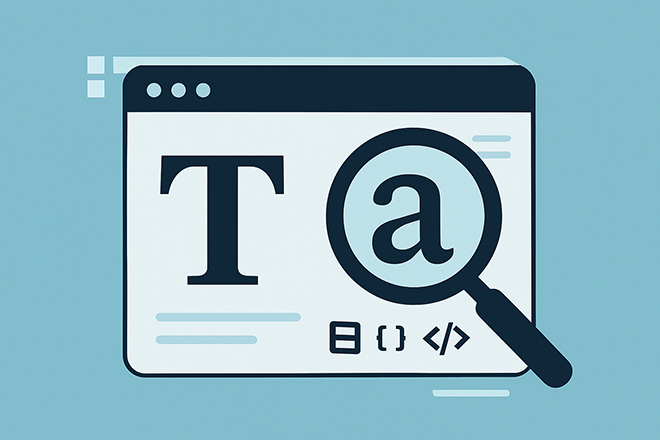
How to Identify a Font: Tips, Tools & Techniques
You’ve seen it before—a font on a poster, website, or logo that just looks perfect, and now you can’t stop thinking about it.
But what do you do when you don’t know the name of the font and need to find it for your own project?
Identifying a typeface might feel like searching for a needle in a haystack, but with the right approach (and a few helpful tools), it’s easier than you think.
Whether you’re trying to match a brand’s typography or simply satisfy your own design curiosity, here’s a practical guide to help you identify fonts with confidence.
Start With What You Know
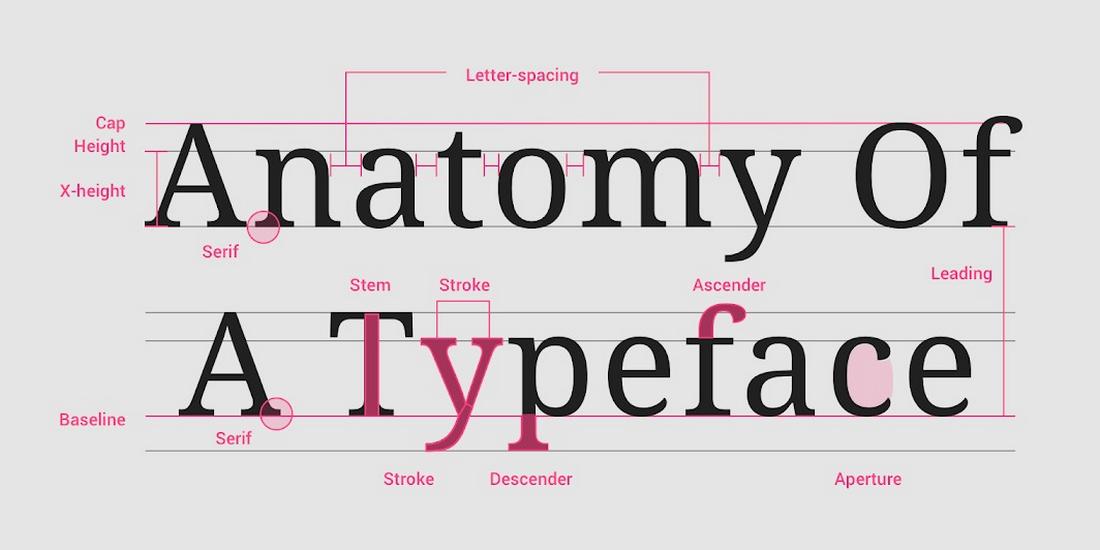
Before turning to tools, try to spot characteristics in the font that can help narrow things down.
Look closely at the letterforms and ask yourself a few questions:
- Is it serif or sans-serif?
- Are the strokes thick or thin?
- Are the letters geometric, rounded, or more humanist?
- Does it have any standout letters (like a unique “Q” or lowercase “g”)?
These small details can help you eliminate entire categories and get closer to a match.
Knowing the basics of typography, such as classifications like slab serif, grotesque, or script, can help you describe what you’re looking at more clearly.
Use Font Identification Tools
Once you’ve analyzed the visual traits of the font, it’s time to turn to technology.
Font identification tools have become surprisingly accurate, thanks to large font databases and smart image recognition algorithms.
These tools can scan a sample image, compare it to known fonts, and give you a list of possible matches, along with links to download or purchase them.
Here’s a closer look at some of the most popular and useful font ID tools available today:
What Font Is
What Font Is is a popular and powerful font recognition tool that uses AI and a massive font database to identify fonts from images.
You can upload a screenshot or crop of the text, and the tool will scan it for character shapes and spacing before presenting you with possible matches.
What makes What Font Is unique is its ability to compare your image against both free and paid fonts—offering a broader range of suggestions.
It also displays links to download or purchase the matched fonts and provides a side-by-side visual comparison so you can evaluate accuracy at a glance.
WhatTheFont by MyFonts
WhatTheFont is one of the most widely used tools for font identification.
You simply upload a screenshot or photo of the font, and the tool will automatically detect the letters and suggest the closest matches from the MyFonts library.
What makes it stand out is its integration with MyFonts’ extensive font marketplace. If you identify a font, chances are you can buy and use it directly from the site.
Font Squirrel Matcherator
Font Squirrel’s Matcherator is another powerful tool, especially useful if you’re looking for free or open-license fonts.
After uploading an image, just like with WhatTheFont, Matcherator will analyze the shapes and spacing of the letters to deliver a list of possible matches.
One advantage of Matcherator is its ability to recognize custom or less common fonts that aren’t necessarily on mainstream marketplaces.
Fonts Ninja (Browser Extension)
Fonts Ninja is a browser extension that lets you identify and test fonts directly from websites.
Once installed, you can hover over any live text on a web page and see the font name, size, spacing, and even a preview.
You can also bookmark fonts you like and try them out in your own designs using their desktop app.
Fonts Ninja is a great choice for designers who frequently get inspired while browsing the web and want to identify fonts quickly without taking screenshots or uploading images.
Fontspring Matcherator
While similar in name to Font Squirrel’s tool, Fontspring Matcherator is tied to the Fontspring marketplace and often excels at identifying both popular and niche commercial fonts.
Like other tools, it lets you upload an image and scans for letter shapes, but it also offers advanced detection for OpenType features and glyph sets.
This tool is especially useful for professional designers looking for fonts with specific technical features, such as ligatures, multiple weights, or multilingual support.
Tips for Getting a Good Match
Font identification tools are powerful, but they’re only as accurate as the input you give them.
To increase your chances of finding the exact or closest match, it’s important to prepare your image properly and understand what makes certain fonts easier to identify.
Here are several tips to help you get better results when using font identification tools.
1. Use High-Quality Images
Clarity is key. Blurry or pixelated text can confuse font detection algorithms, especially when trying to match fine details like serifs, curves, or spacing.
Try to capture the text in the highest resolution possible. If you’re grabbing a screenshot from a website or video, zoom in before you take it. If it’s printed, use a scanner or high-resolution photo.
2. Choose Straight, Horizontal Text
Font recognition tools work best when the text is aligned horizontally and not distorted.
If the text is on a curve, tilted, or placed on an angle, it’s a good idea to straighten it using photo editing software before uploading.
Cropping and rotating the image to align the baseline of the text horizontally can dramatically improve results.
3. Use Clean, Unobstructed Samples
Remove any design elements, shadows, gradients, or overlapping graphics that might interfere with the letters.
The cleaner and simpler your image, the better the tool can focus on the actual typeface. Avoid busy backgrounds or textured surfaces unless you can isolate the text first.
4. Include Multiple Characters
Some fonts may look very similar when viewed through just one or two letters.
Try to include a full word or phrase—especially characters that tend to vary a lot between fonts, like “g,” “Q,” “a,” “R,” or “e.” The more variety in the sample, the easier it is for the tool to narrow things down.
5. Avoid All-Caps if Possible
Many fonts treat uppercase and lowercase letters differently in terms of spacing, height, or design features.
If your sample is all caps, the tool might struggle to identify subtle traits. Mixed case samples tend to yield more accurate results because they show more of the font’s overall character design.
6. Remove Extra Spacing or Effects
Letter spacing (tracking), outlines, drop shadows, or other stylistic effects can interfere with identification.
If the text has been stylized or modified, try to strip it back as much as you can.
If it’s a logo or graphic, and you suspect the font has been customized, keep in mind that the tool may only be able to find something similar—not exact.
7. Use Editing Tools to Improve the Image
If your sample comes from a less-than-perfect source, use an image editing tool like Photoshop, Canva, or even your phone’s photo app to adjust contrast, crop the text, and clean up the background.
Making the text stand out more clearly against its background can improve detection accuracy.
Explore Similar Fonts
Sometimes you won’t find an exact match, but that’s okay. If the original font is custom, heavily modified, or discontinued, you can usually find something close.
Many tools offer similar alternatives or let you search by keyword, style, or use case.
Sites like Envato Elements, Google Fonts, Adobe Fonts, Fontspring, and DaFont also allow you to preview fonts with custom text, making it easier to find something that fits your design even if it’s not a perfect match.
Join Font Communities
If all else fails, ask the design community. There are several active forums and groups where type enthusiasts love solving font mysteries:
- Reddit: r/identifythisfont is dedicated to helping people ID fonts.
- Typography forums: Typography-focused forums, like Typography.guru, are a great place for more in-depth font discussions.
- Twitter/X and Instagram: Post an image with a clear question, many designers are happy to help.
Keep a Font Reference Library
As you get more experienced with fonts, you’ll start to recognize styles and names more easily.
Keeping your own reference folder or bookmarked font list can help you remember what you’ve used or admired in the past.
You can even create moodboards with font pairings or screenshots of designs you like, along with notes about what makes them stand out. Over time, your eye for type will sharpen naturally.
Conclusion
Font identification is part detective work, part design intuition.
Start by observing the details, use the tools available, and don’t be afraid to ask for help when needed.
The more you practice, the better you’ll get at spotting type styles, remembering names, and building your own library of trusted fonts.